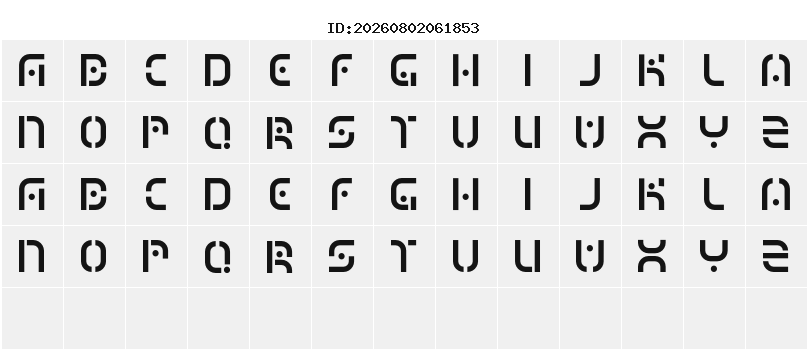
• Font Name: MIZU
• Designer: ANA LUIZA MIZUTANI
About MIZU.otf
MIZU.otf is a modern, elegant sans-serif font designed for ultimate readability and visual harmony. Perfect for branding, headlines, web design, and print materials.